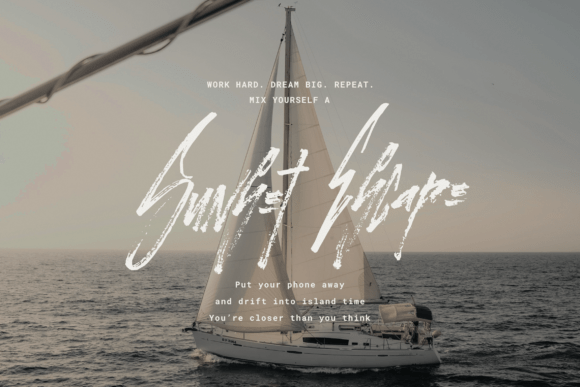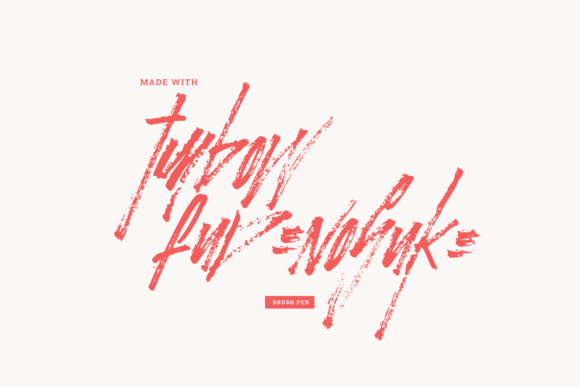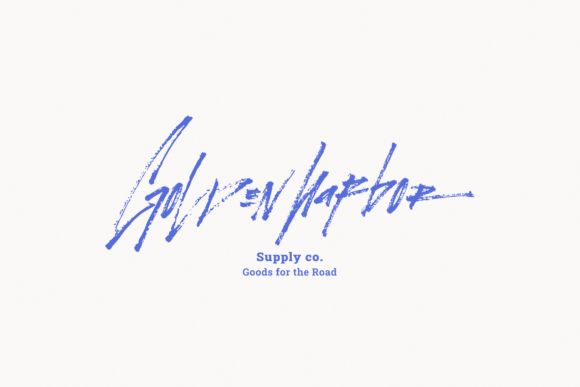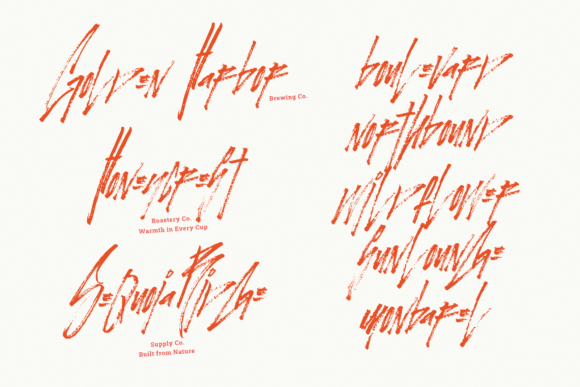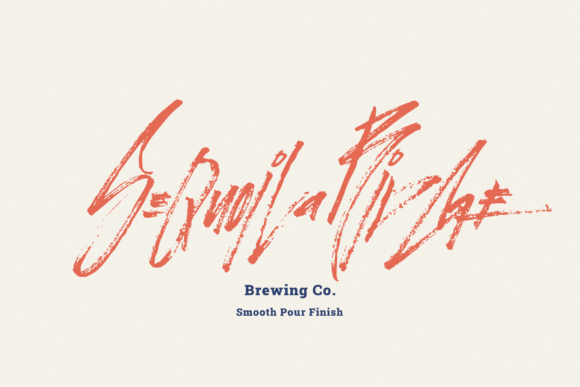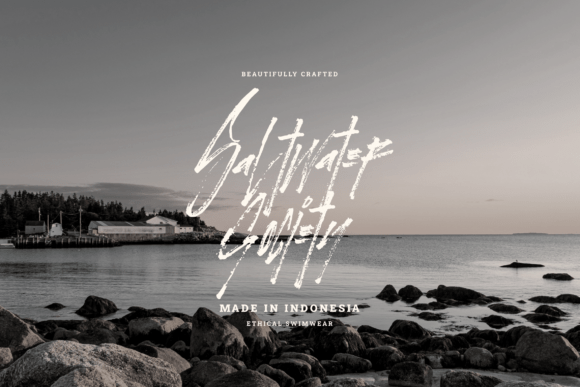
Introduction to November Rain Font
Have you ever stared at a blank canvas, waiting for the perfect spark to ignite your creative project? For designers, that spark can come in many forms – a fresh color palette, a bold typography choice, or even a unique font that brings a project to life. For us, that spark is often found in the November Rain Font, a stunning dry brush script font that captures the raw energy and organic rhythm of true hand lettering.
What makes November Rain Font so special? It’s the result of careful handcrafting using a Tombow Fudenosuke brush pen, carefully recreating real ink texture, pressure, and natural stroke movement. This attention to detail brings a bold, emotional, and gritty brush feel that’s perfect for designs that need personality, attitude, and authentic handmade character.
Key Features of November Rain Font
- High-quality design resource perfect for creative projects, including music albums and concert posters.
- Features a transparent background, allowing for easy customization and versatility in design applications.
- Offers high-resolution fonts, ideal for printing and digital displays with high pixel density.
- Unique, elegant design aesthetic, reminiscent of the classic rock ballad by Guns N’ Roses.
- Supports a wide range of languages, making it suitable for international design projects.
Honest Review: November Rain Font
I recently stumbled upon the November Rain Font, and I must say it’s a gem in the world of typography. As a designer, I’m always on the lookout for high-quality design resources that can elevate my creative projects.
Here are some things that work well: ✨ The font has a sleek and modern design that’s perfect for creating a sophisticated look in any project. The transparent background feature is a great bonus, making it easy to customize and blend with other design elements. Additionally, the free download option is a huge plus, making it accessible to designers of all levels.
Some potential limitations to consider: ⚠️ The font may not be suitable for projects that require a more playful or whimsical tone, as it’s geared towards a more formal and elegant aesthetic. Additionally, the font’s versatility may be limited by its modern design, which may not appeal to designers looking for a more classic or vintage look.
Overall, I’m thoroughly impressed with the November Rain Font. Its high-quality design and transparent background feature make it an excellent addition to any designer’s toolkit. With a little creativity, this font can help take your projects to the next level.
- Perfect for modern and formal design projects
- Suitable for projects requiring a sophisticated look
The November Rain Font is ideal for use in creative projects, such as music albums, book covers, and website designs. Its unique style and high quality make it a popular choice among designers.
To get the most out of the November Rain Font, use it in conjunction with other design elements, such as graphics and images. Experiment with different font sizes and styles to create a visually appealing design. With practice and patience, you can unlock the full potential of the November Rain Font and take your design to the next level.